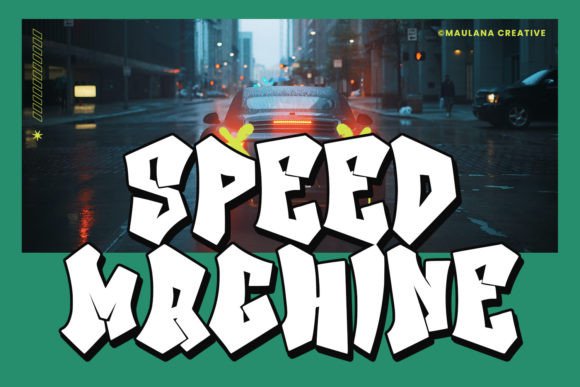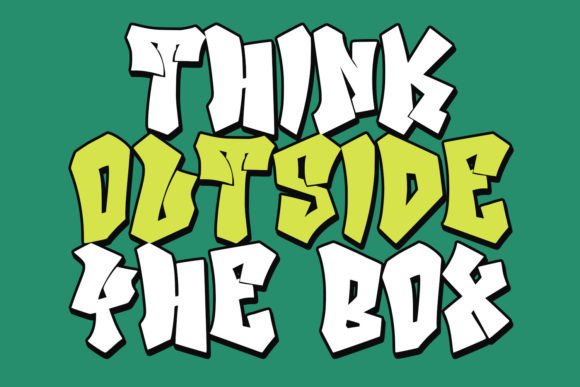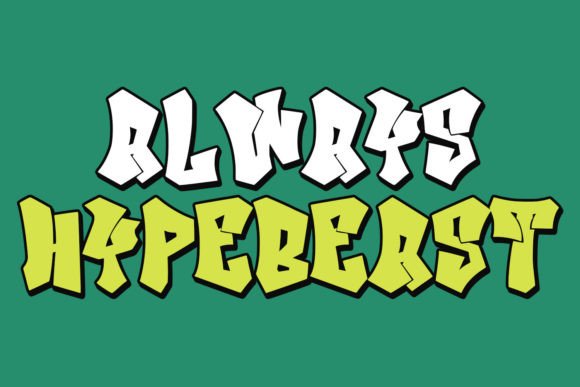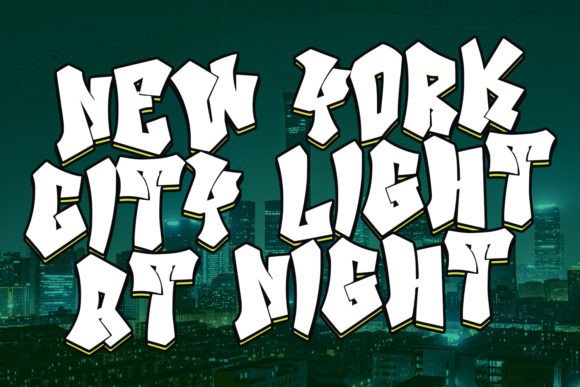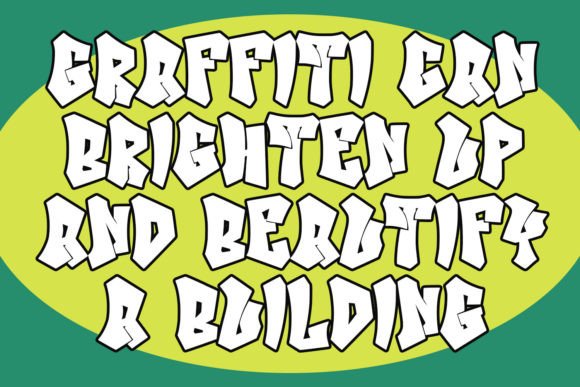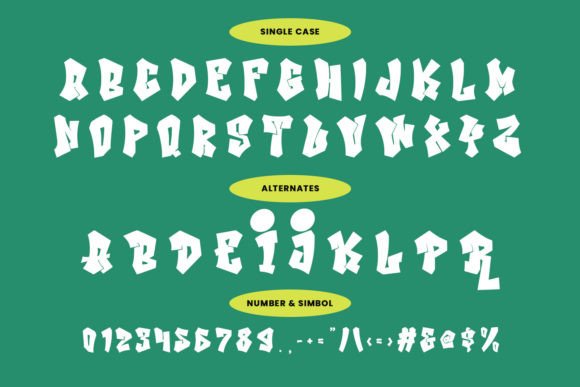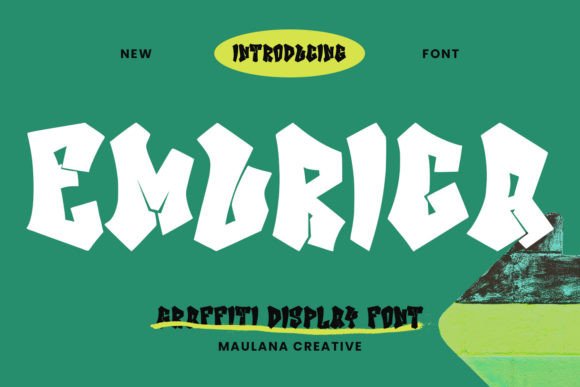
Unleash Your Creativity with Emurica Graffiti Font
In the world of typography, fonts play a crucial role in conveying messages, expressing emotions, and creating visual identities. For designers, crafters, and creative enthusiasts, finding the right font can make all the difference in bringing their ideas to life. If you’re on the hunt for a modern display font that can elevate your designs, look no further than Emurica Graffiti Font. In this article, we’ll dive into the world of Emurica Graffiti, exploring its features, uses, and benefits.
What is Emurica Graffiti Font?
Emurica Graffiti is a modern display font designed to make a statement. With its sleek lines, bold characters, and urban feel, this font is perfect for creating stunning visual content. Whether you’re a designer, artist, or crafter, Emurica Graffiti offers a wide range of creative possibilities. From logo design and social media graphics to movie titles and book covers, this versatile font can be used in various projects.
Key Features of Emurica Graffiti Font
- Modern Design: Emurica Graffiti boasts a contemporary design that’s perfect for modern brands, artists, and designers.
- Display Font: This font is specifically designed for display purposes, making it ideal for headlines, titles, and promotional materials.
- Versatile: Emurica Graffiti can be used in various projects, from digital designs to print materials.
- Easy to Read: Despite its bold and edgy design, Emurica Graffiti remains easy to read, even at smaller sizes.
Uses of Emurica Graffiti Font
Emurica Graffiti is an incredibly versatile font that can be used in a wide range of projects, including:
- Logo Design: Create a bold and memorable logo for your brand with Emurica Graffiti.
- Social Media Graphics: Use Emurica Graffiti to create eye-catching social media graphics, including Facebook posts, Instagram stories, and Twitter headers.
- Movie and Book Titles: Add a touch of modernity to your movie and book titles with Emurica Graffiti.
- Posters and Flyers: Create stunning posters and flyers with Emurica Graffiti.
- Branding and Advertising: Use Emurica Graffiti to create bold and attention-grabbing branding and advertising materials.
Benefits of Using Emurica Graffiti Font
So, why choose Emurica Graffiti Font for your next project? Here are just a few benefits:
- Unique Design: Emurica Graffiti offers a unique and distinctive design that can help your project stand out.
- High-Quality: This font is designed with high-quality and precision, ensuring that it looks great in any project.
- Time-Saving: With Emurica Graffiti, you can save time and effort in creating stunning visual content.
- What is Emurica Graffiti Font? Emurica Graffiti is a modern display font designed for creating stunning visual content.